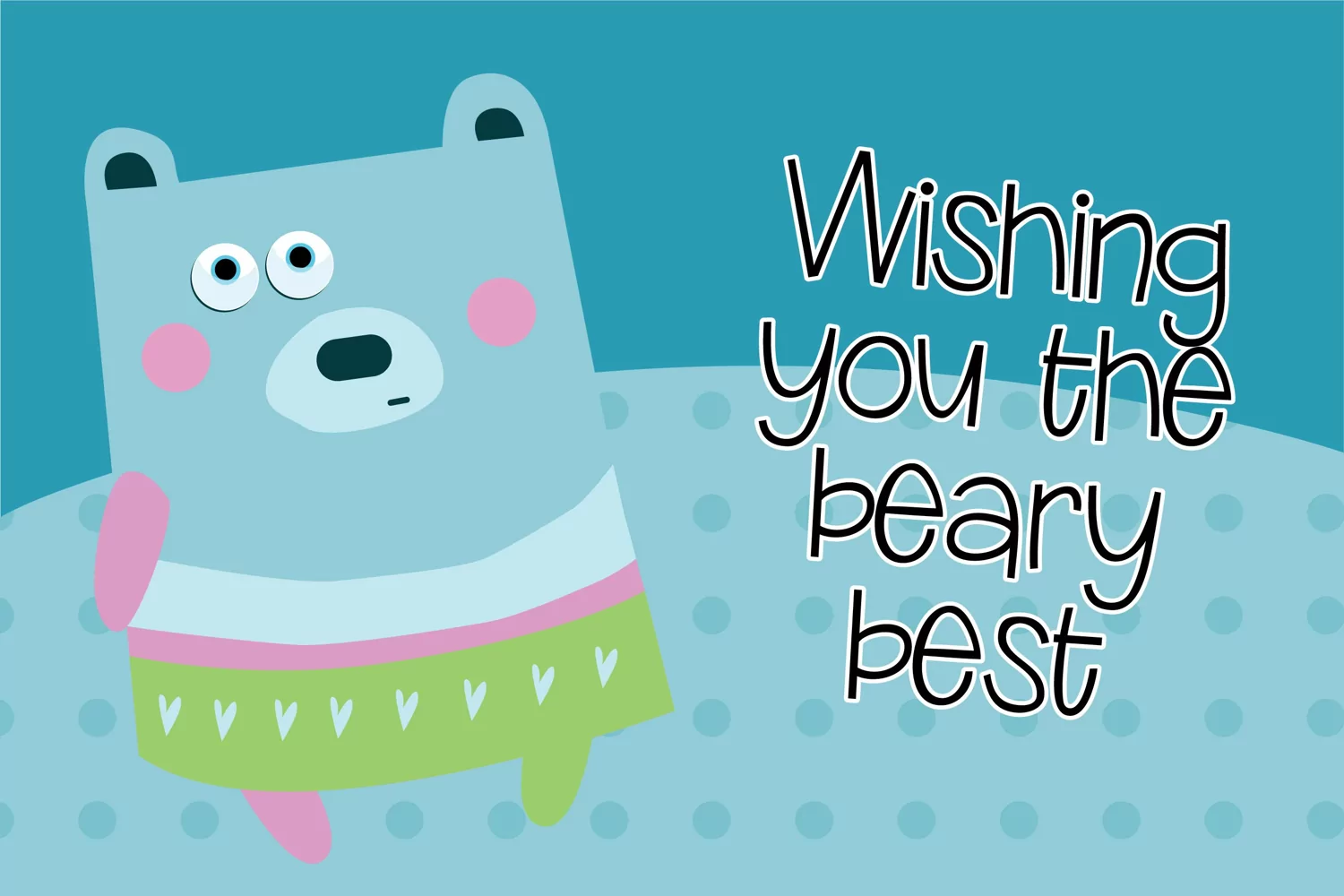
Goosebumps is a cute sans serif font, that is youthful and whimsical and comes with a very adaptable style. It embodies playfulness and authenticity and is the perfect choice for any children activity or school project. Includes regular and black version.